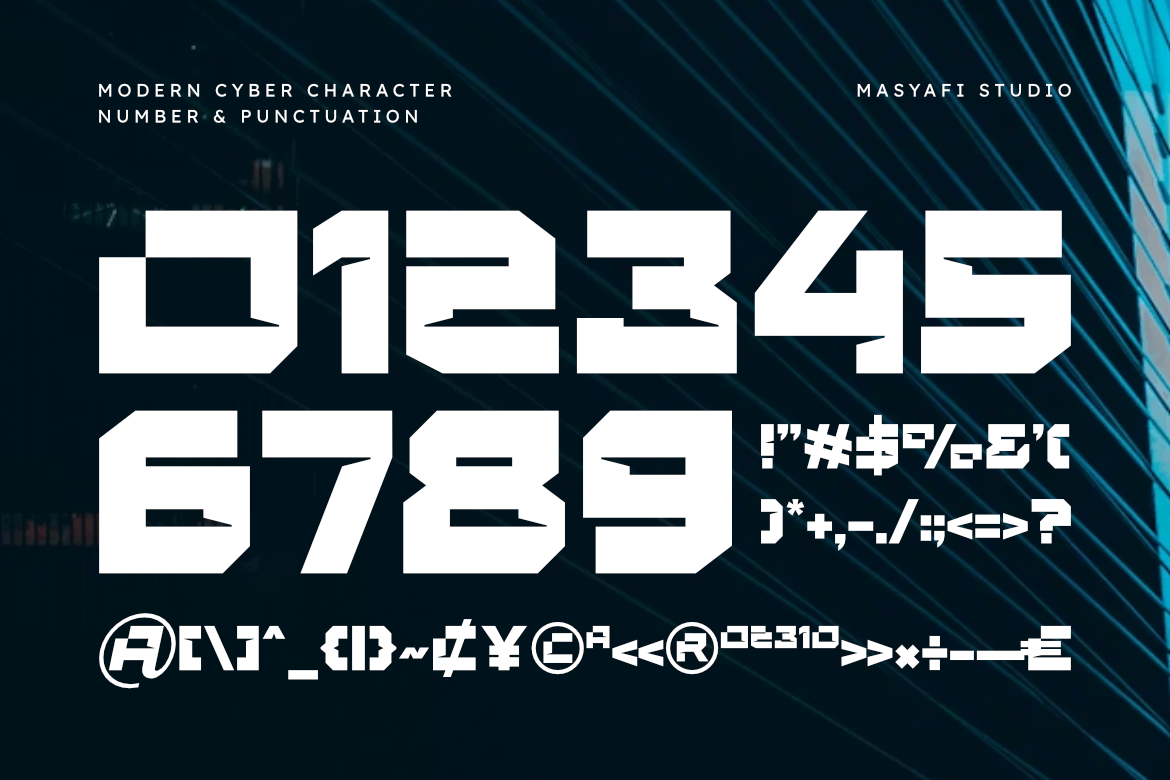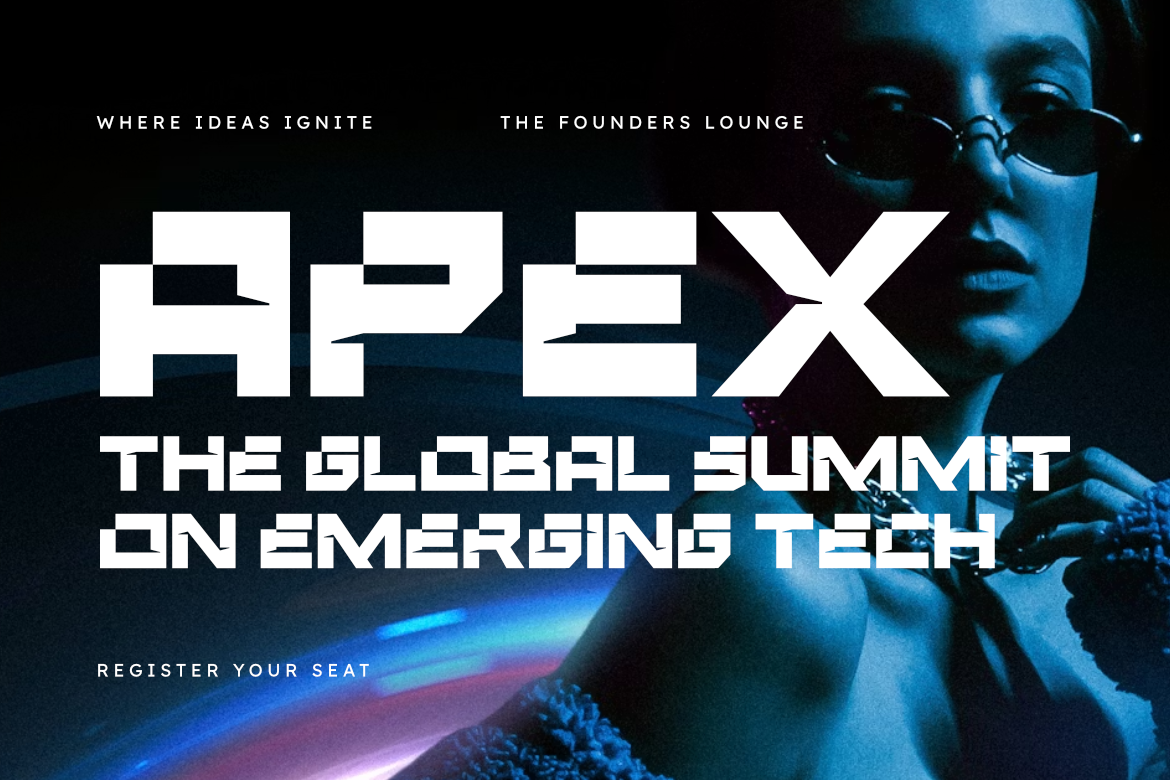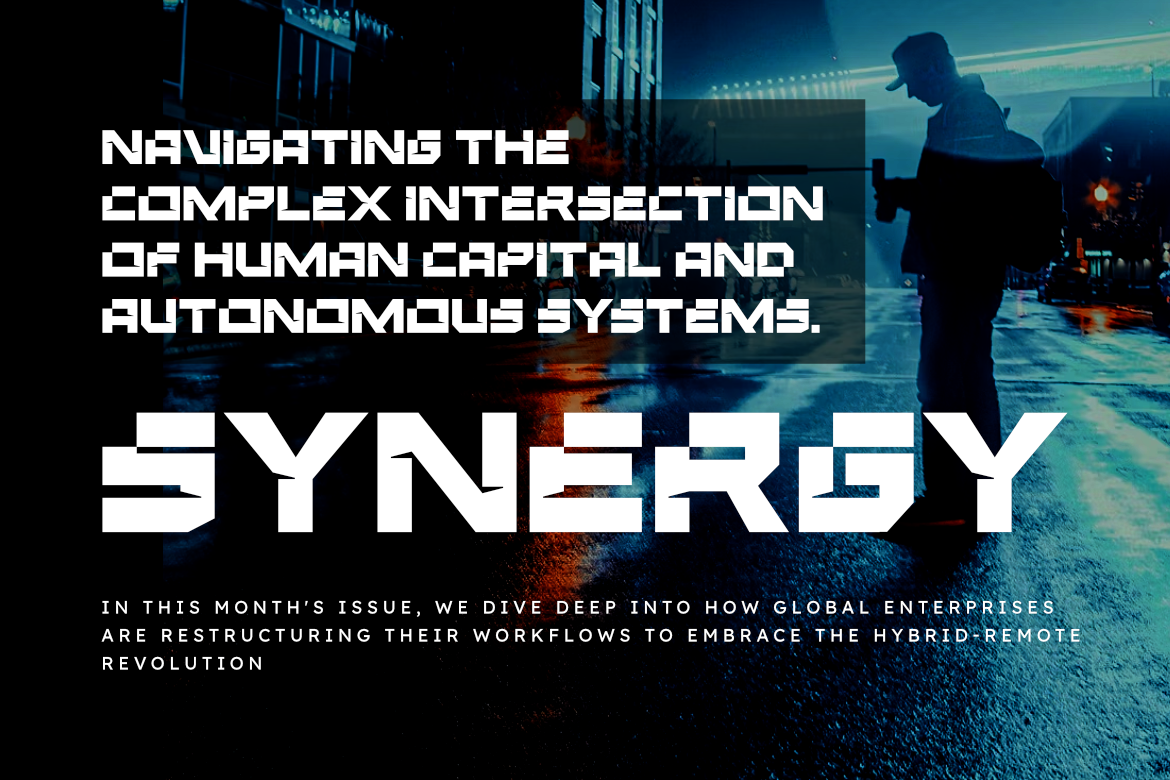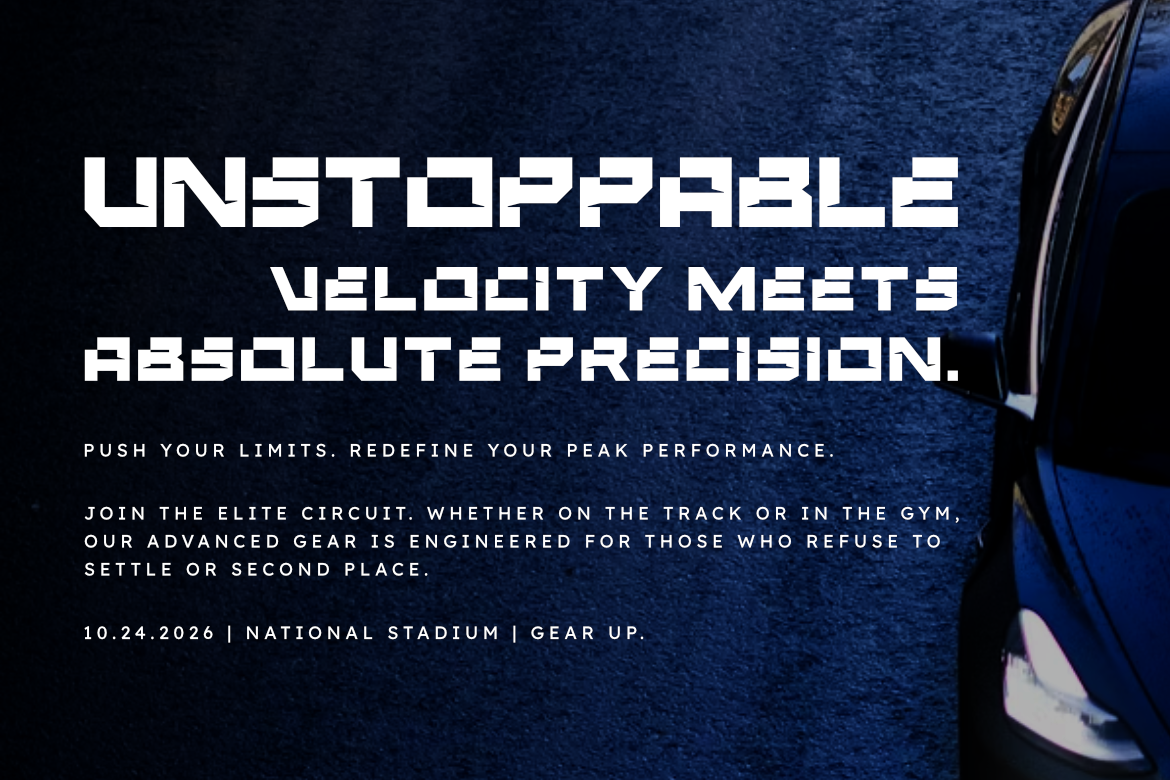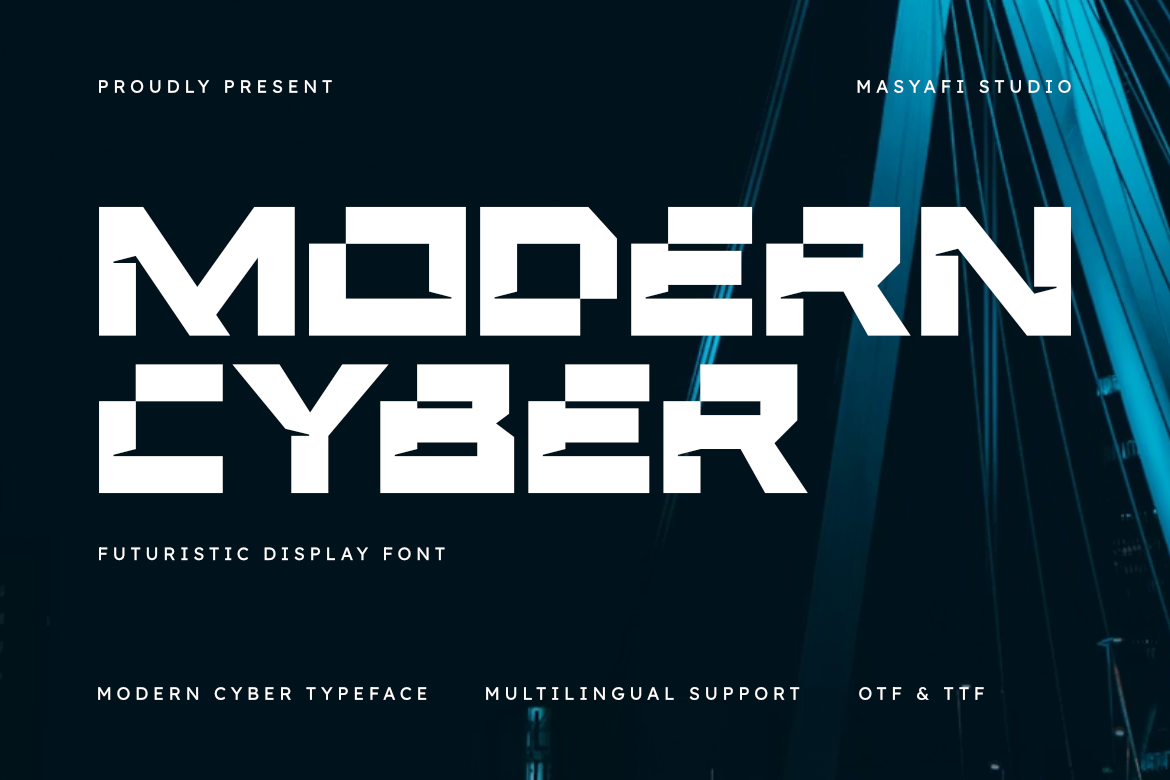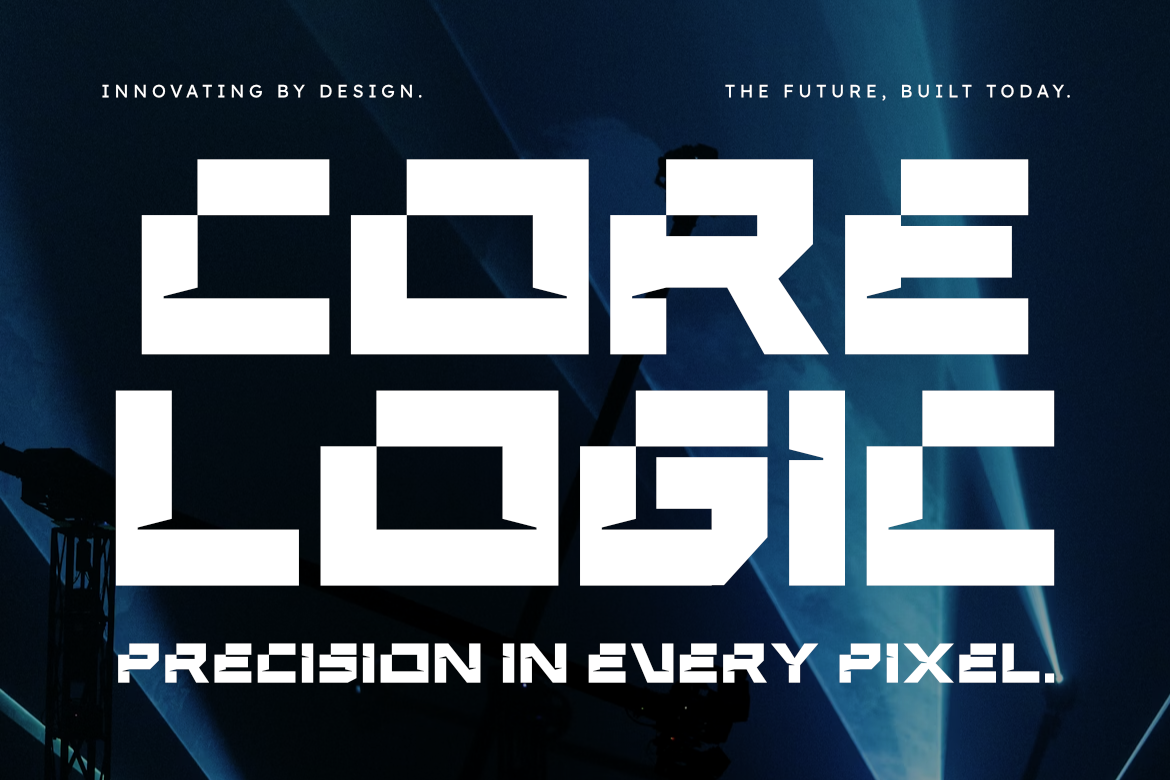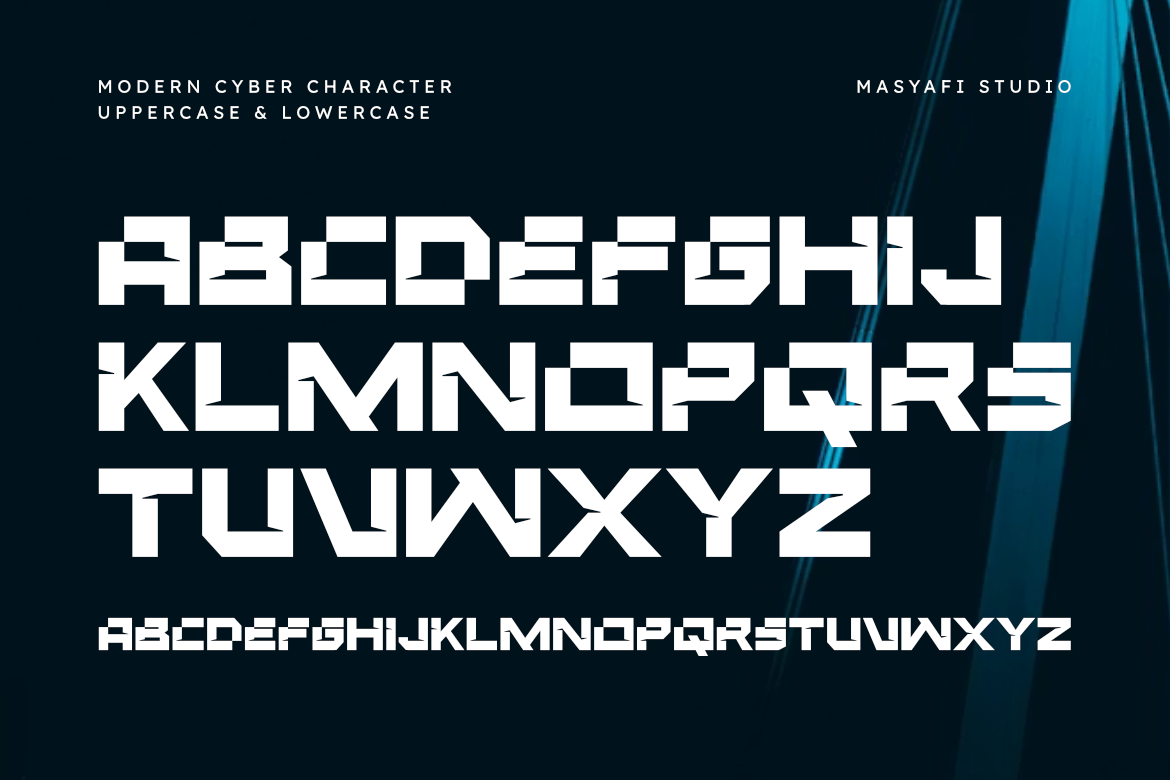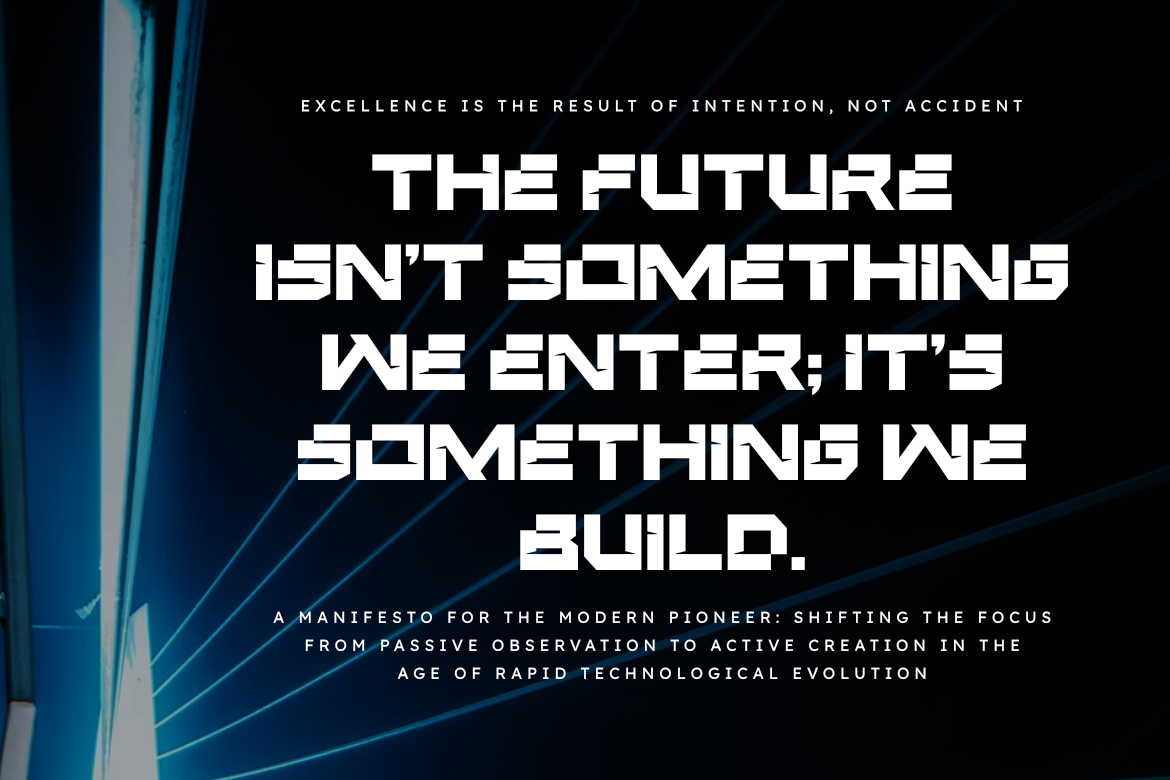
Modern Cyber - Futuristic Display Font for Technology Brand Identity
Modern Cyber is a high-impact futuristic display font designed to bring a bold, digital edge and mechanical precision to your creative projects.
This typeface embodies the synergy between cyberpunk aesthetics and geometric structural design. Its sharp, stencil-like cuts and blocky letterforms provide a sense of digital motion and industrial power, maintaining a clean look while exuding a sophisticated sense of luxury and refinement.
Whether you are crafting a brand identity for a tech startup, designing high-octane gaming interfaces, or creating sleek marketing materials, Modern Cyber offers the versatility to elevate your visual storytelling. It is ideal for professional logos, corporate materials, and high-end digital presentations.
Inspired by the neon-lit energy of futuristic cityscapes, Modern Cyber offers an adaptable design that empowers you to communicate a polished and contemporary aesthetic that leaves a lasting impression.
- Futuristic and Cyberpunk display style.
- Bold geometric letterforms with unique stencil cuts.
- Optimized for high-end branding and digital usage.
- Multilingual support.